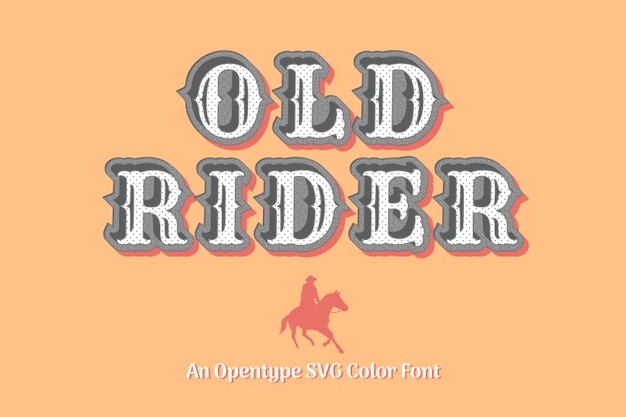
Saddle up with 'Old Rider' font—an ode to the Wild West. Each character resonates with a vintage, retro charm, capturing the rugged spirit of the frontier. This typographic journey transports your designs to a bygone era, where the Old Rider's legacy rides on in timeless style.